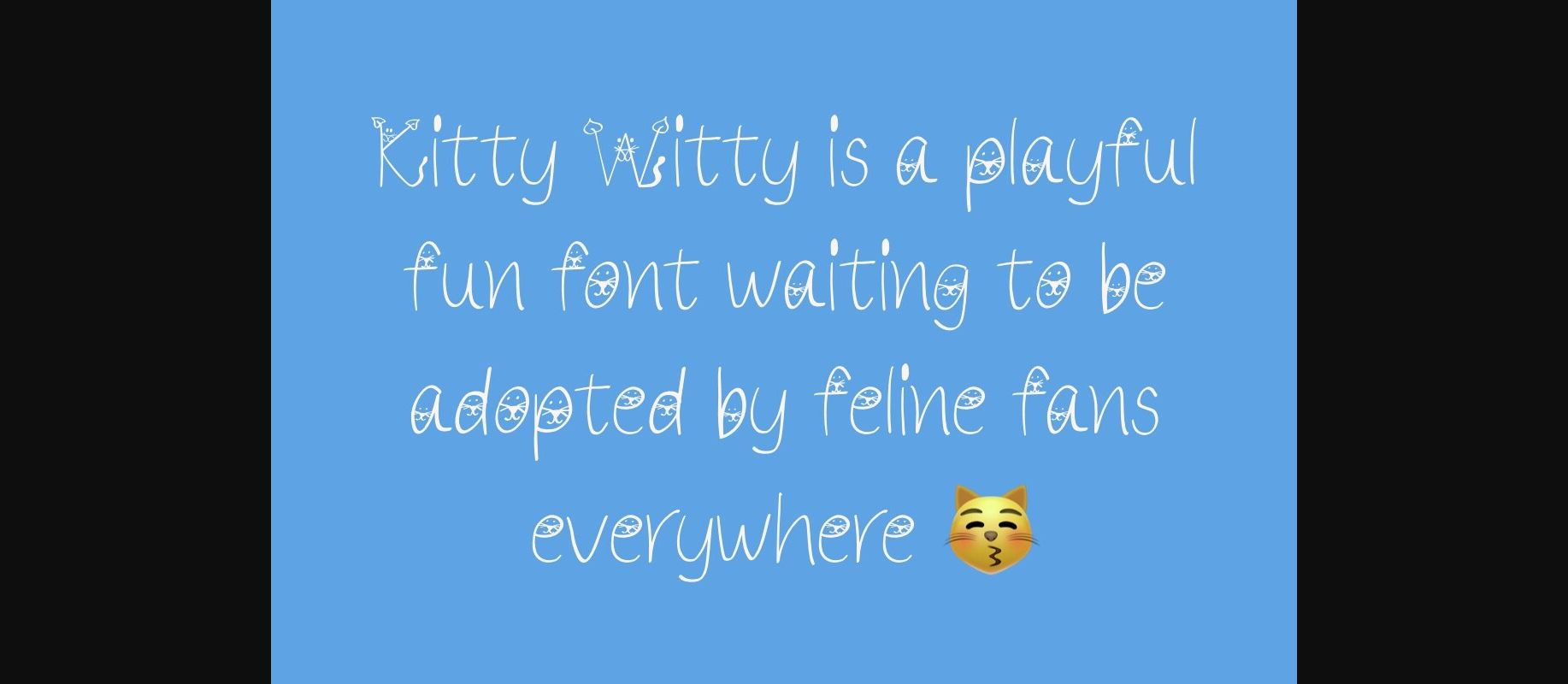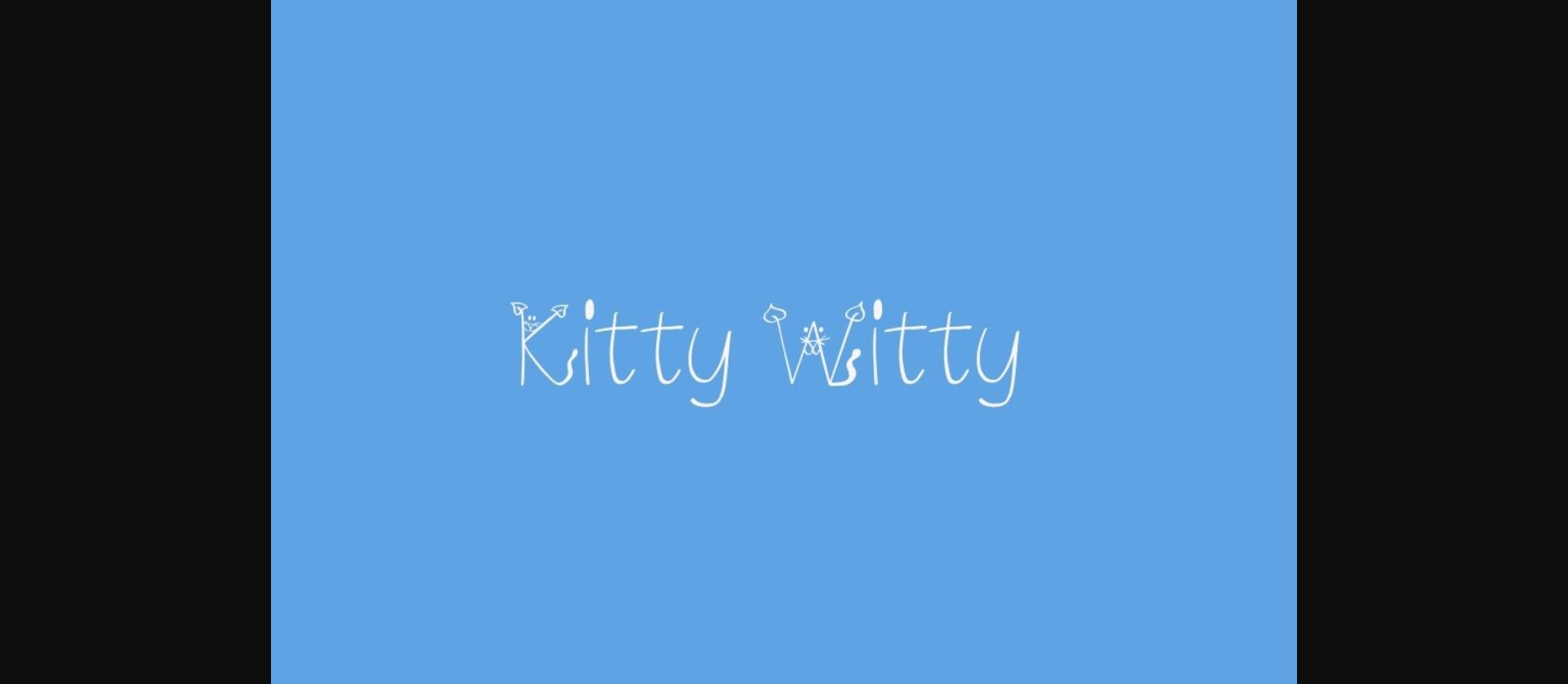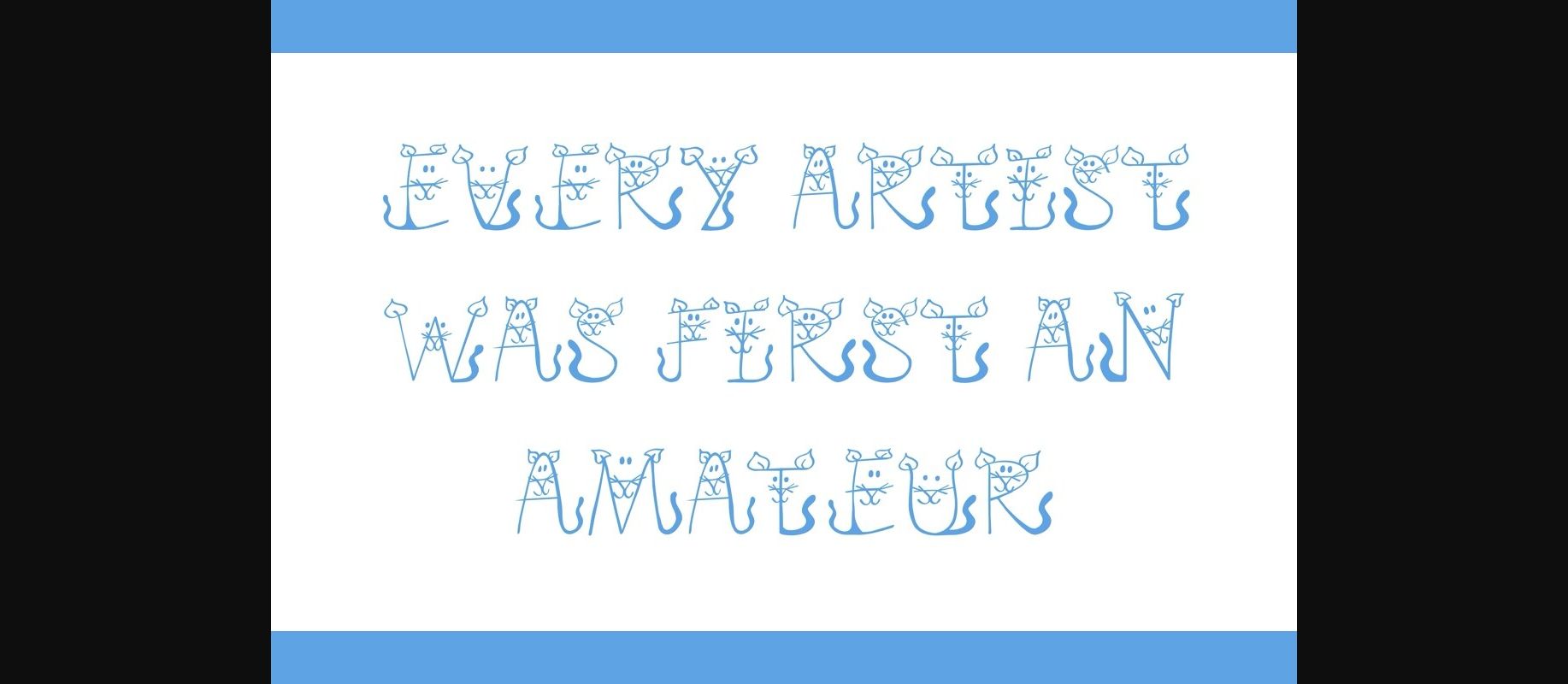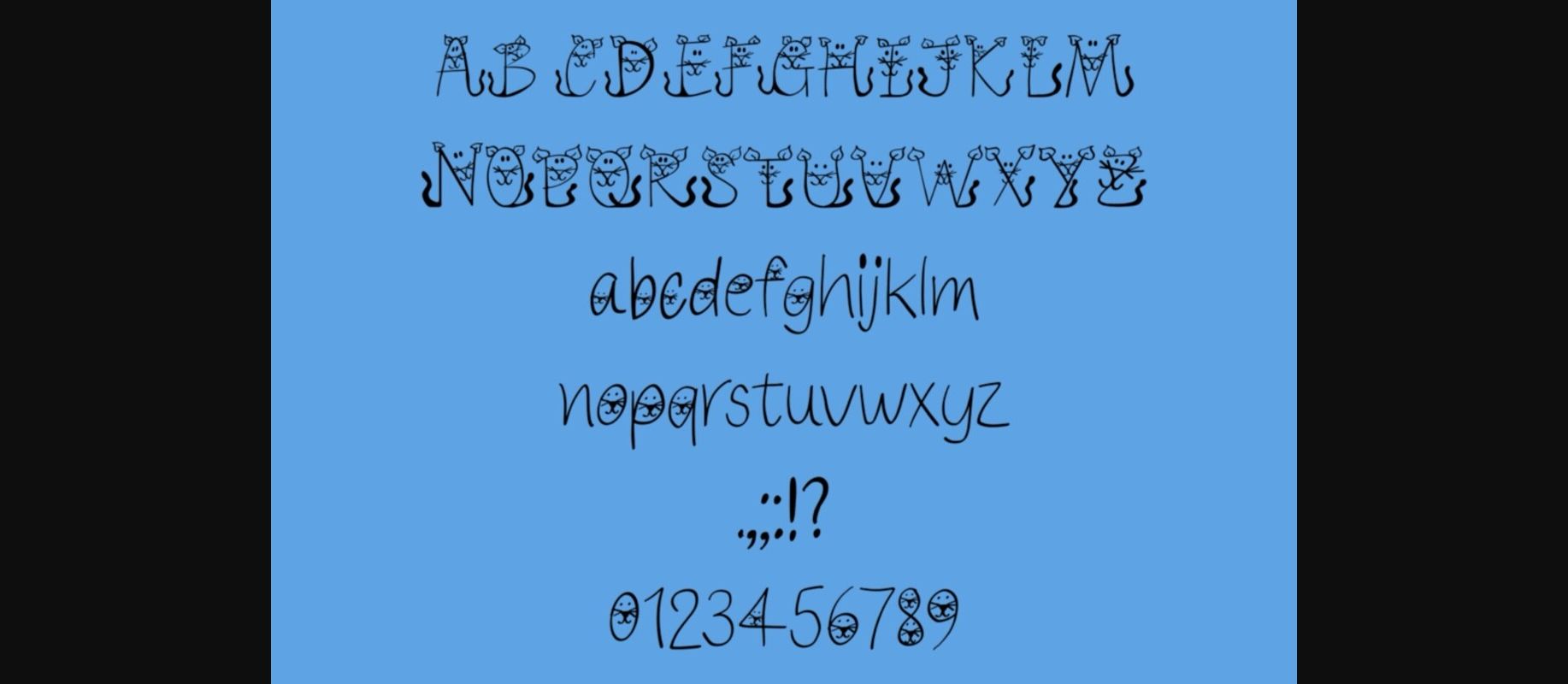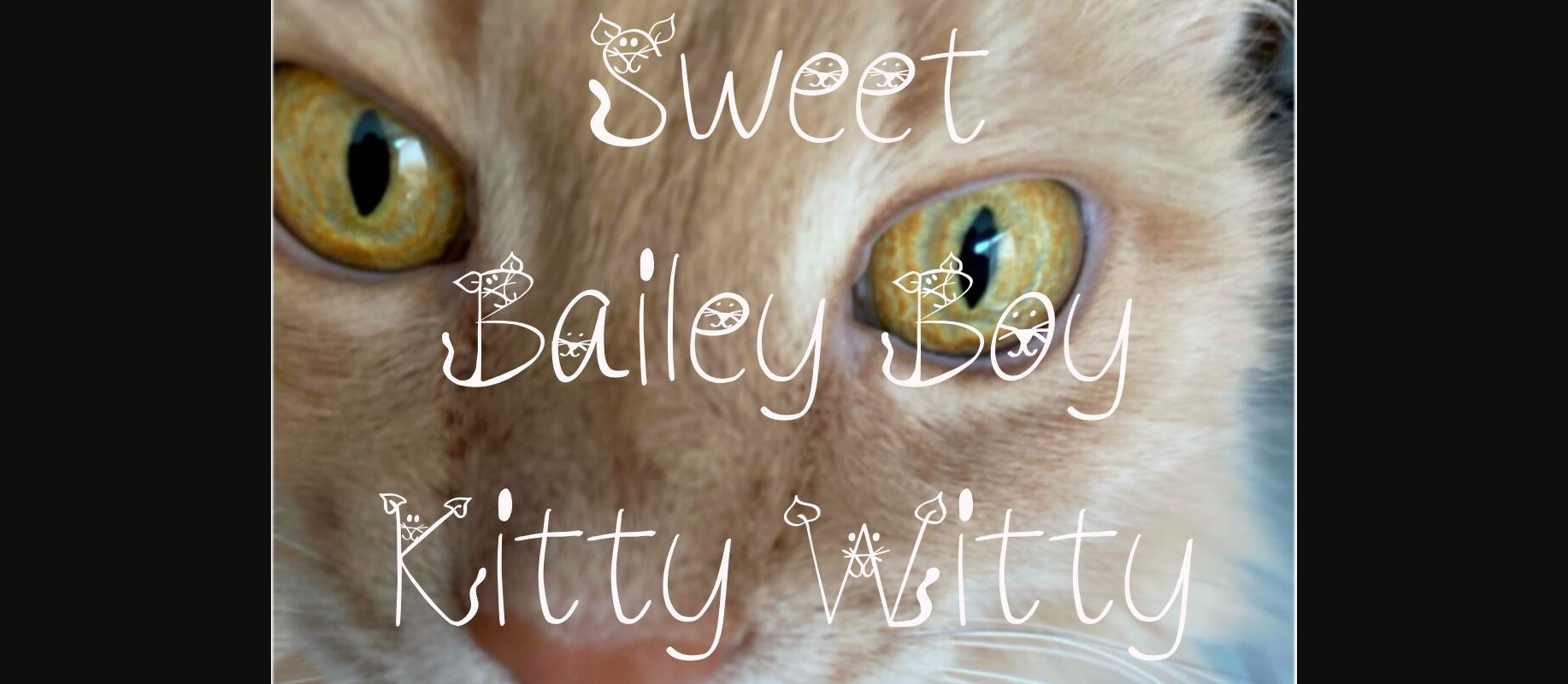
Kitty Witty Font
About Kitty Witty Font
Imbued with fun and charm, Kitty Witty is a visual ode to feline lovers. This decorative font is designed to captivate, never failing to lighten moods and spread smiles. Kitty Witty is not just a font; it’s an enchanting painting of love for cats, articulated through letters. With a whimsical and friendly demeanor, it wields the power to transform any design into a delightful pleasure for the eyes of every cat enthusiast. It’s not just seriously silly; it’s endearingly lovable! Journey into the world of Kitty Witty – a font that purrs with flair and mirth.